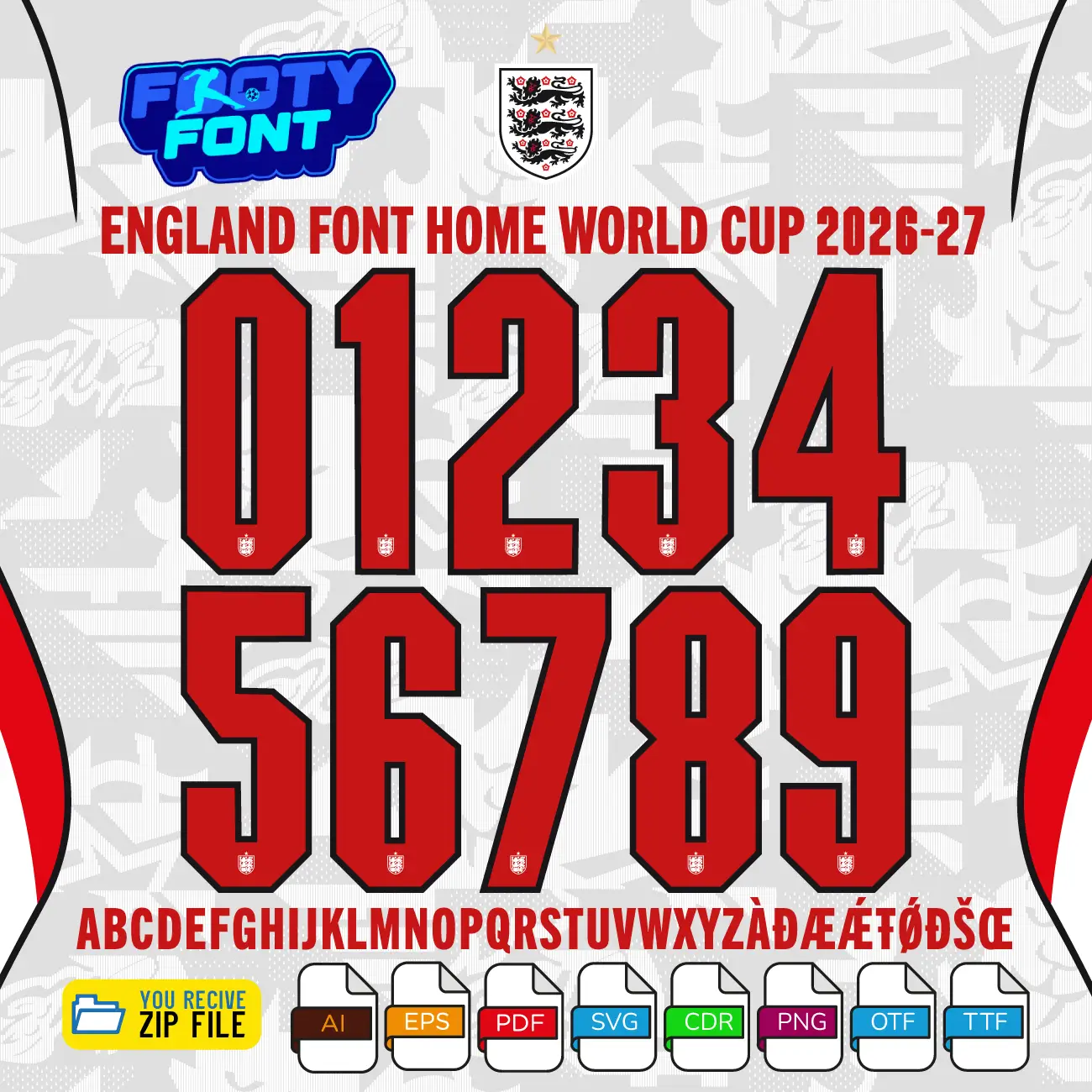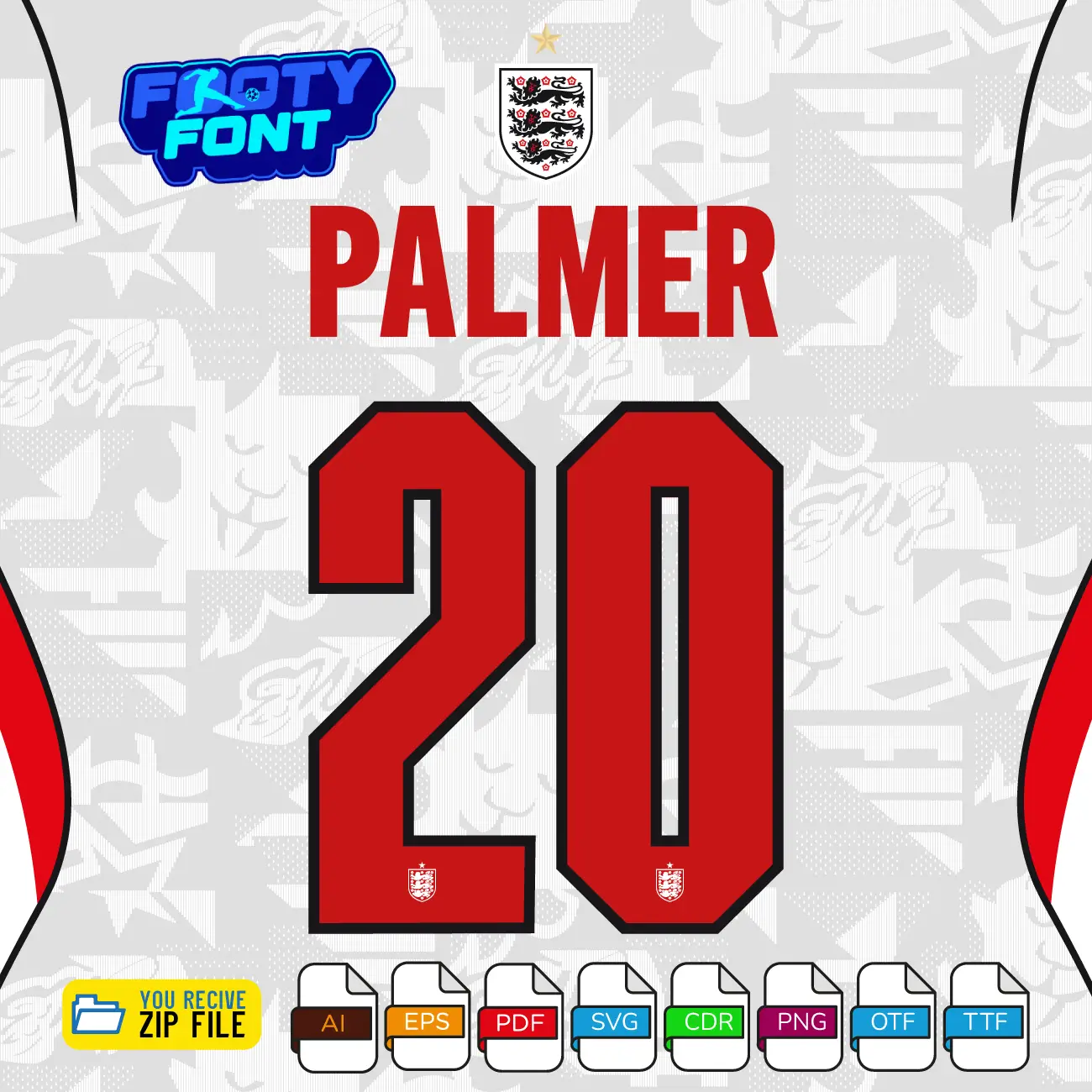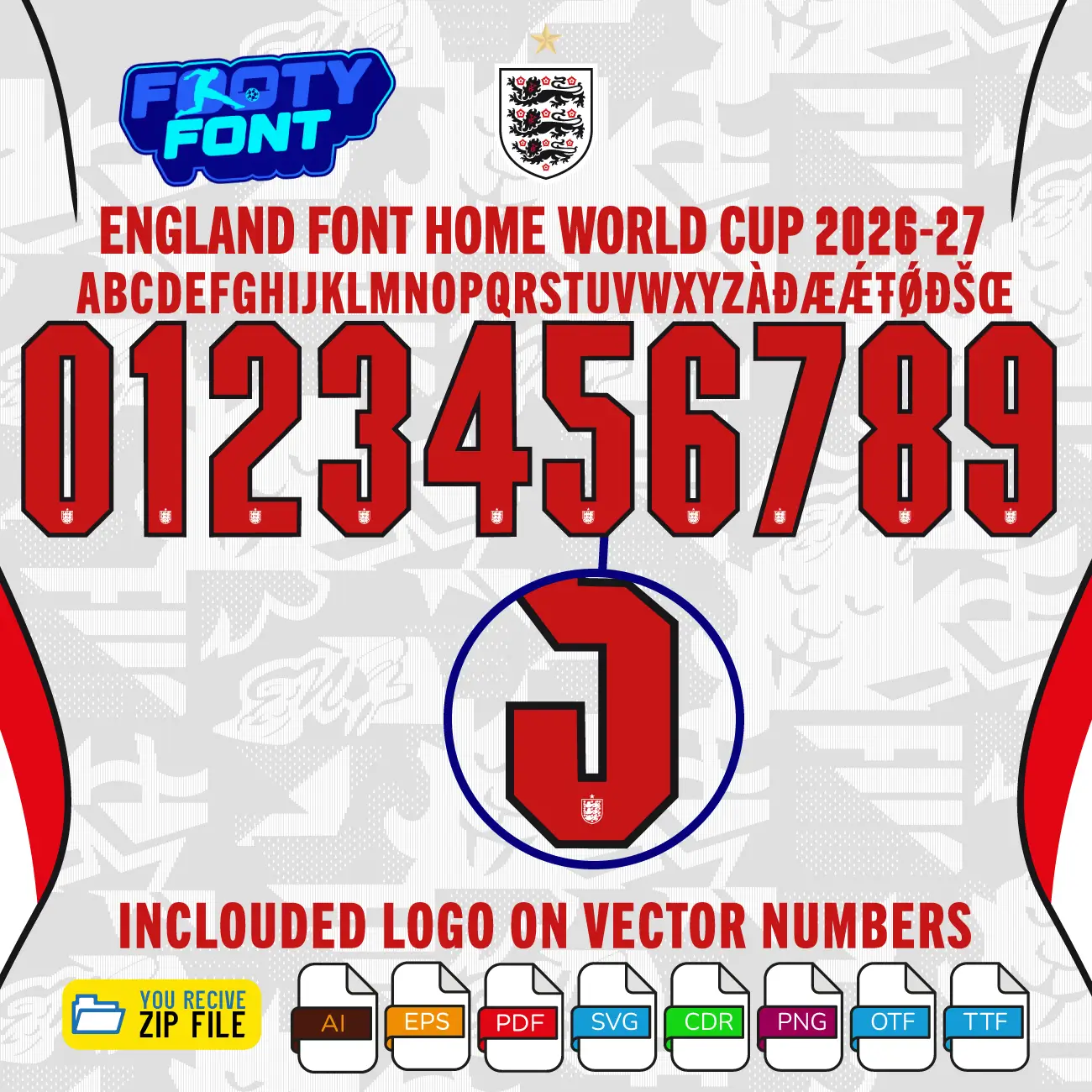
England 2026 Football Font
Bring the pride of the Three Lions to your designs with this font, inspired by the England 2026 World Cup home kit. This high-quality typeface is meticulously designed to replicate the bold, modern lettering worn by the English National Team. It features striking red numbers with sharp, dark outlines that perfectly complement their classic white home jerseys.
This font captures the elite style worn by England’s world-class stars like Cole Palmer, Jude Bellingham, Bukayo Saka, and Harry Kane. As England prepares to compete on the global stage, this home font is an absolute must-have for fans creating custom jersey designs, digital art, streetwear, or matchday posters.
Composite image showing England players wearing the classic white home jersey alongside the complete character set of the England Font World Cup 2026 Home.
A complete look at the England Font World Cup 2026 Home, featuring the full number set and a real-world match photo of the Three Lions.
England Font World Cup 2026 Home Kit showing the complete alphabet and bold red numbers.
England Font World Cup 2026 (Home Kit)